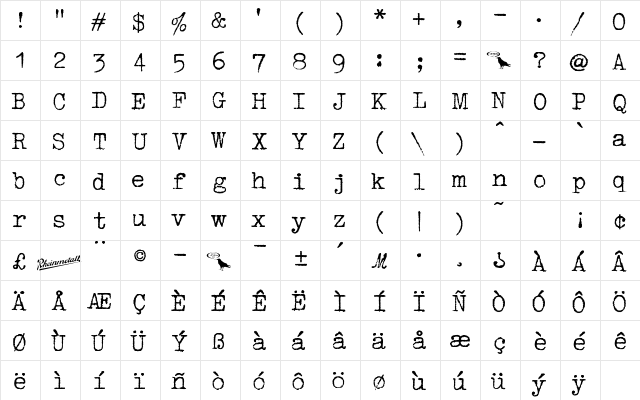
1952 RHEINMETALL Regular Font Preview
1952 RHEINMETALL Regular
1952 RHEINMETALL Regular Font Details
| Foundry | Lukas Krakora |
| Designer | Lukas Krakora |
Design Context for 1952 RHEINMETALL Typeface
1952 RHEINMETALL takes a measured approach to typography — its balanced proportions and neutral character make it a reliable workhorse for both digital and print work.